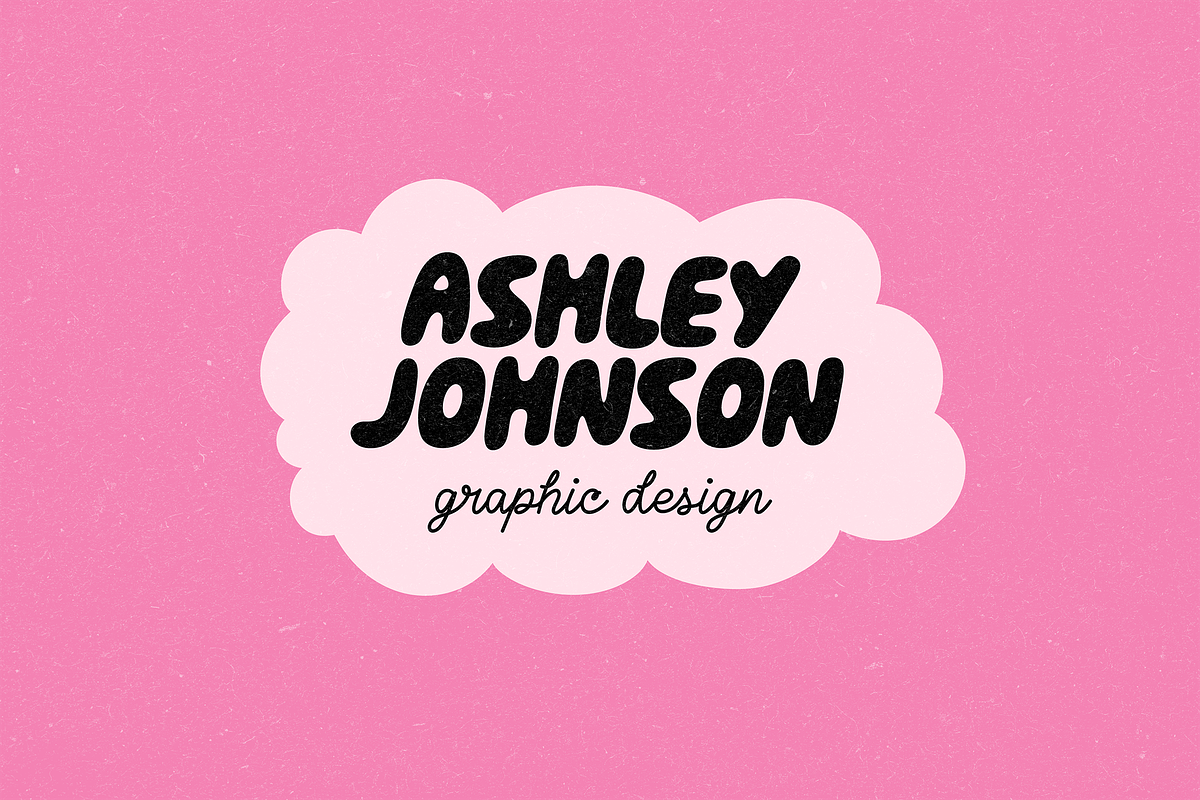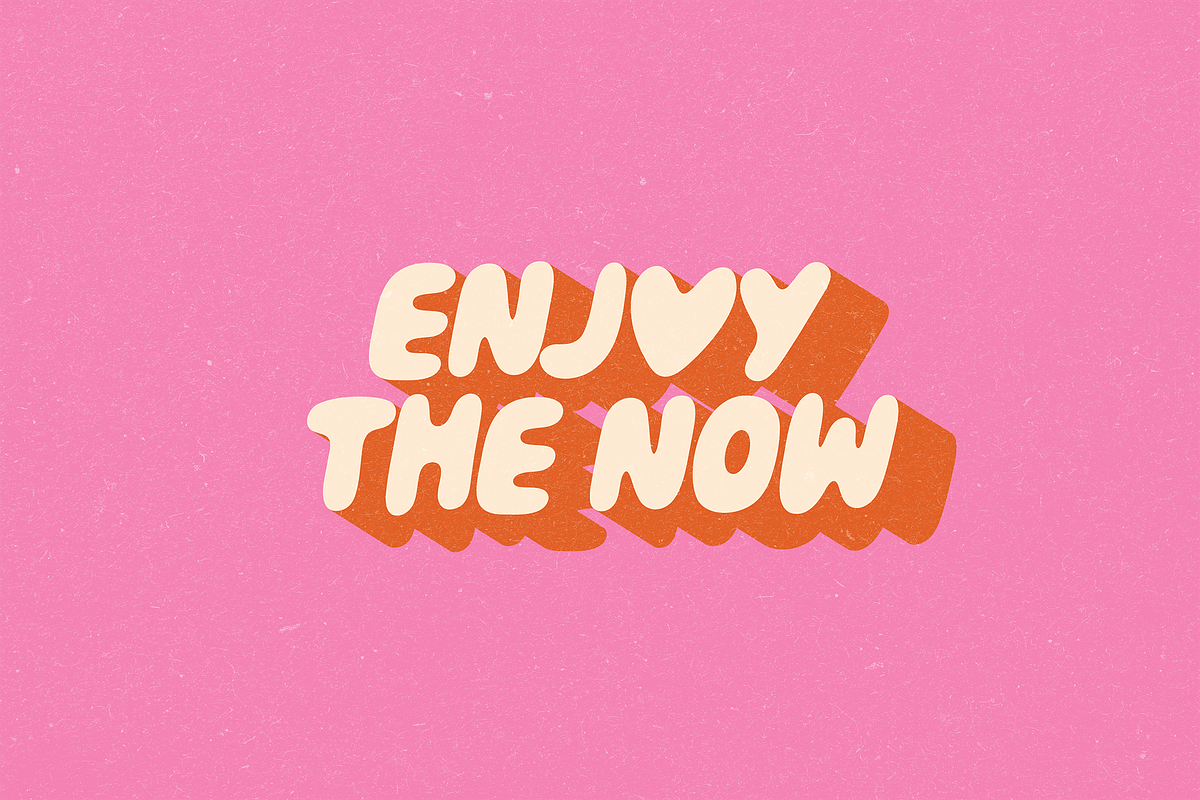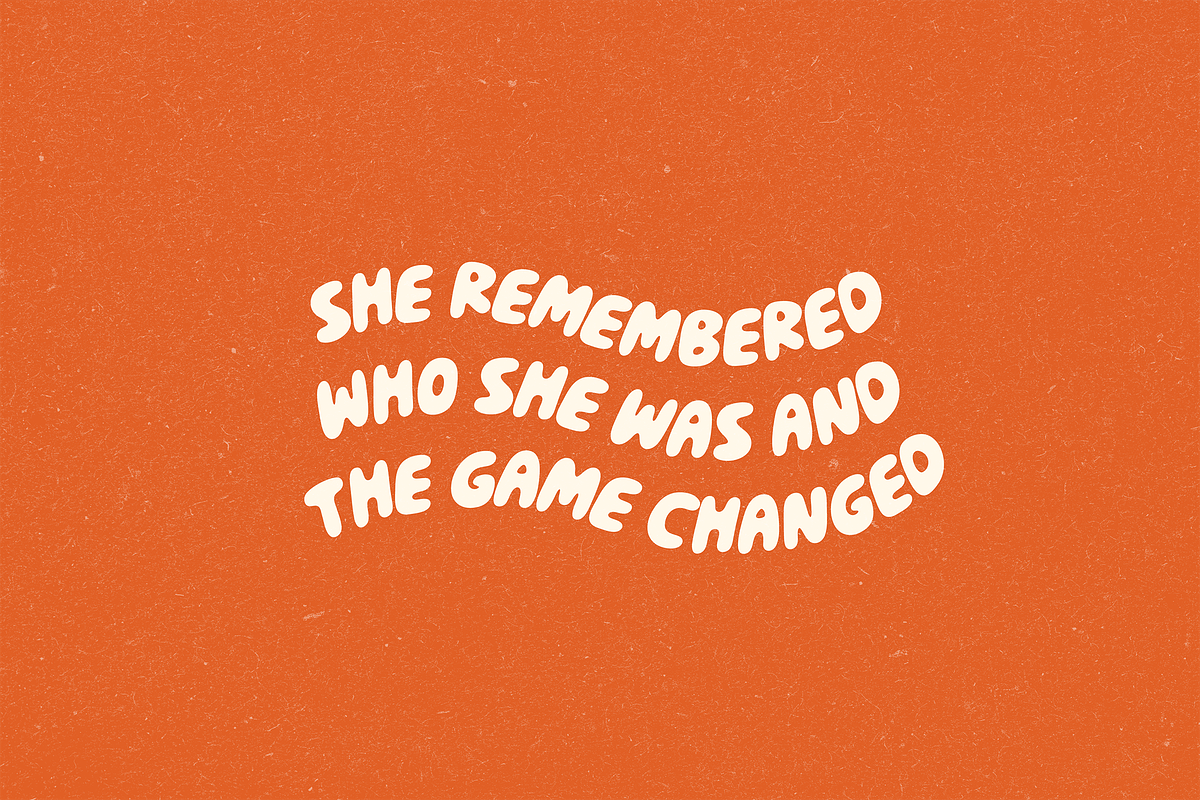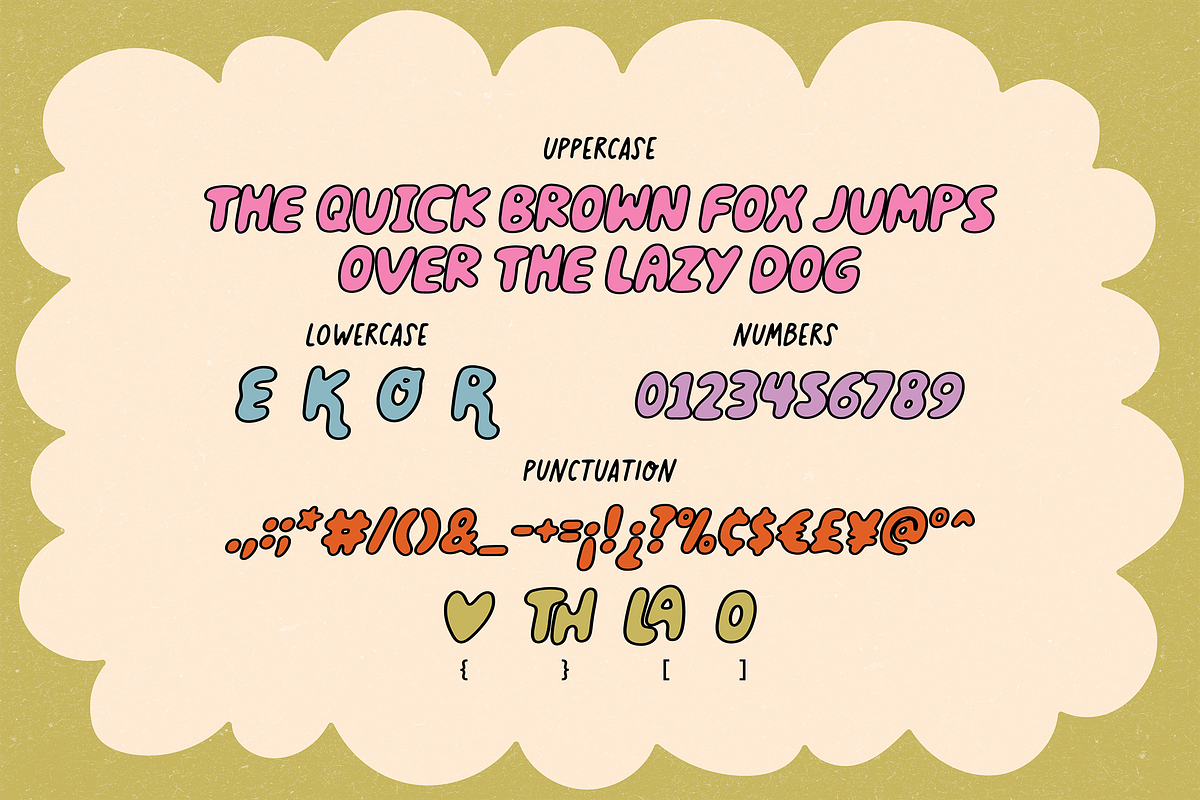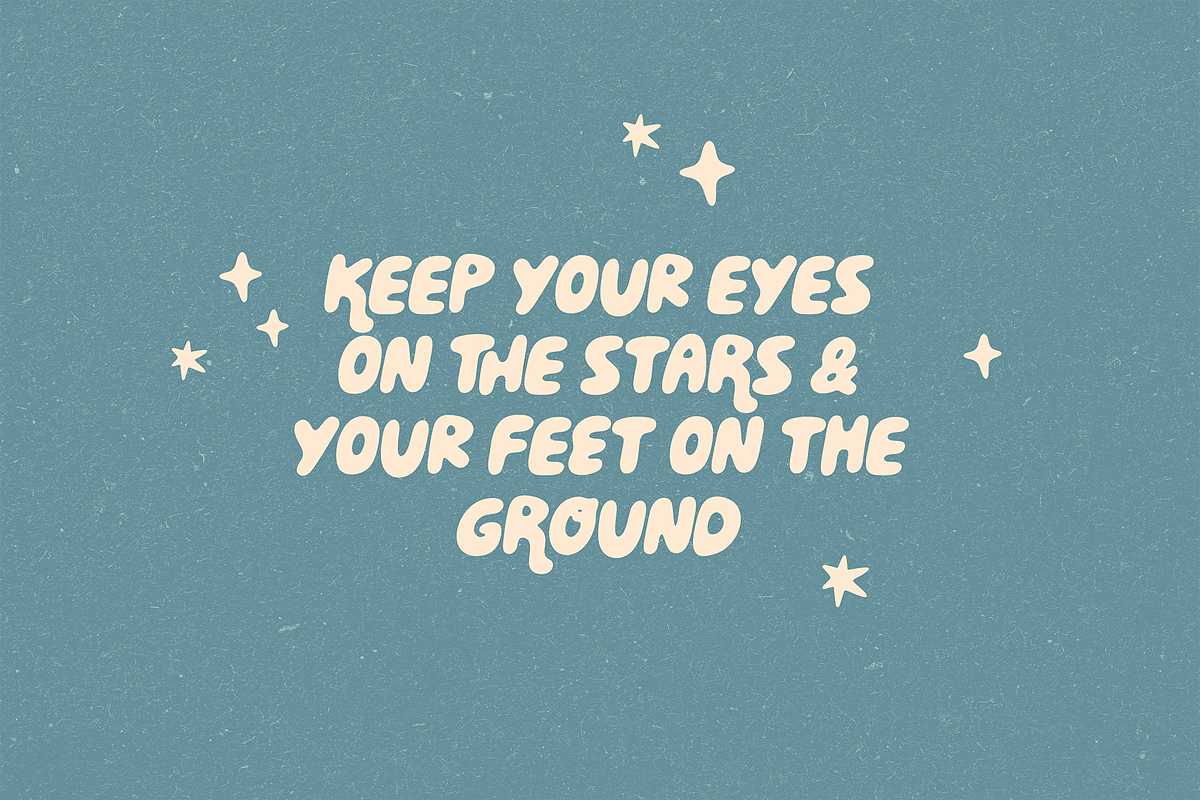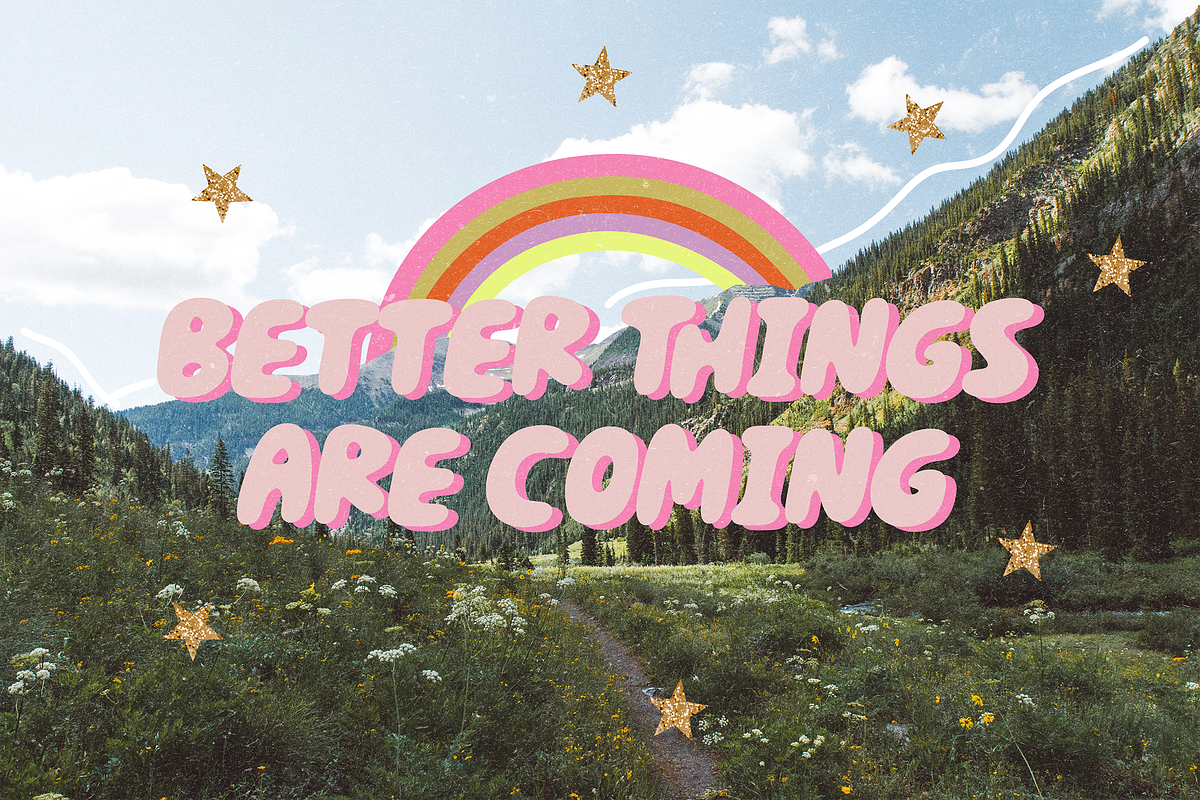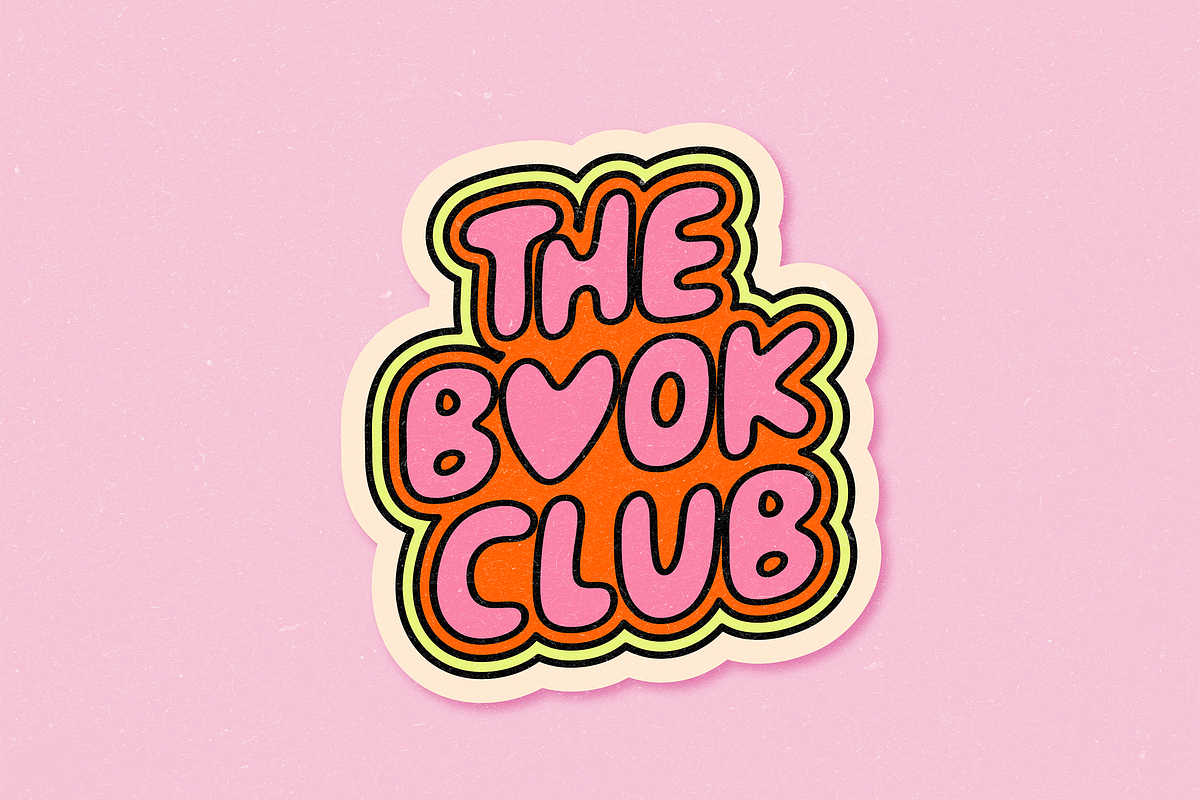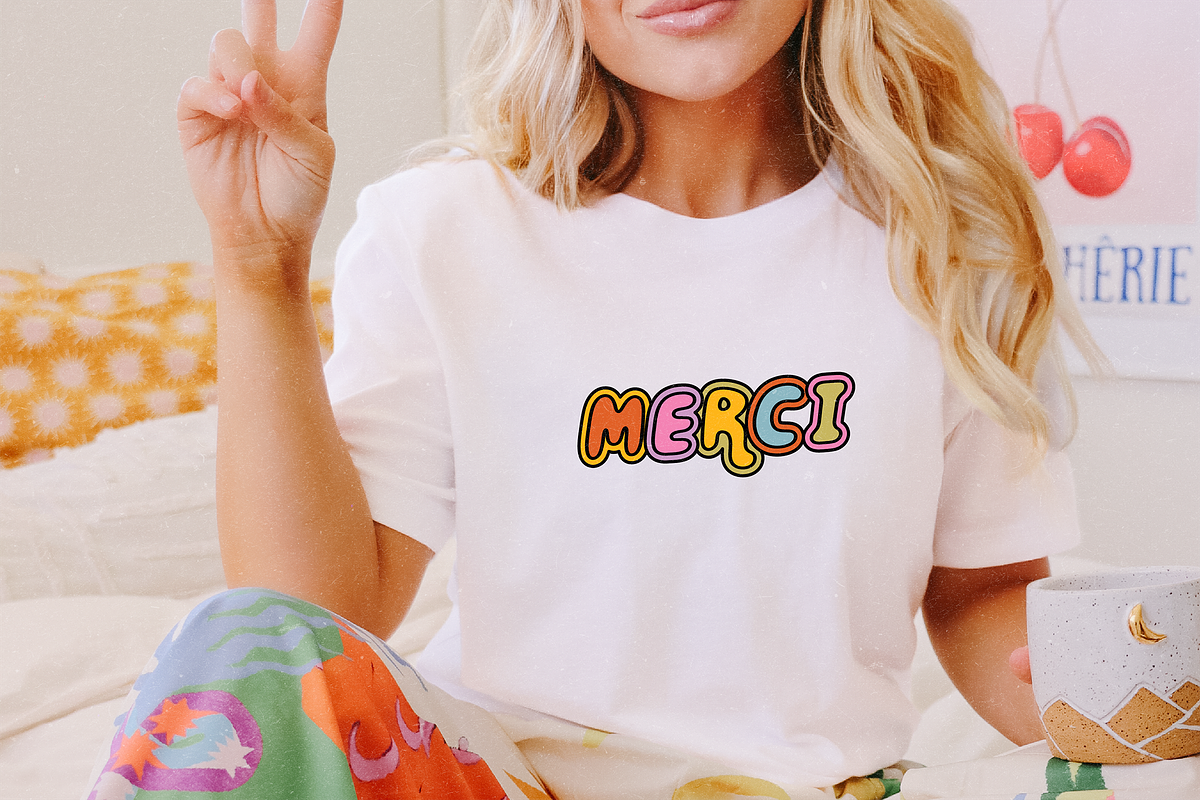
DOING GREAT | Cool Bubble Font
Introducing "Doing Great" - A Cool Hand-Drawn Bubble Font
Elevate your designs with "Doing Great," a unique hand-drawn bubble font perfect for all your creative projects. Inspired by a love for rounded shapes, this font adds a softer, welcoming touch.
Why You'll Love "Doing Great":
- Versatile: Ideal for branding, stickers, t-shirts, merchandise, quotes, and social media.
- Unique Characters: Features special letters and fun symbols.
- Hand-Drawn Charm: Adds a personal, handcrafted feel to any design.
- Branding & Logos
- Stickers & Merchandise
- Apparel & T-Shirts
- Quotes & Social Media Posts
✷ Use the 8 symbols included to make cute/cool compositions.
- Left Curly Bracket { – Heart (substitute for the letter "O")
- Right Curly Bracket } – TH ligature
- Left Square Bracket [ – LA liagture
- Right Square Bracket ] – “o” another lowercase version
- BackSlash – Star
- Logical Not ¬ – Shine/star
- Greater equal ≥ – Fun quotation marks (up)
- Less equal ≤ – Fun quotation marks (down)